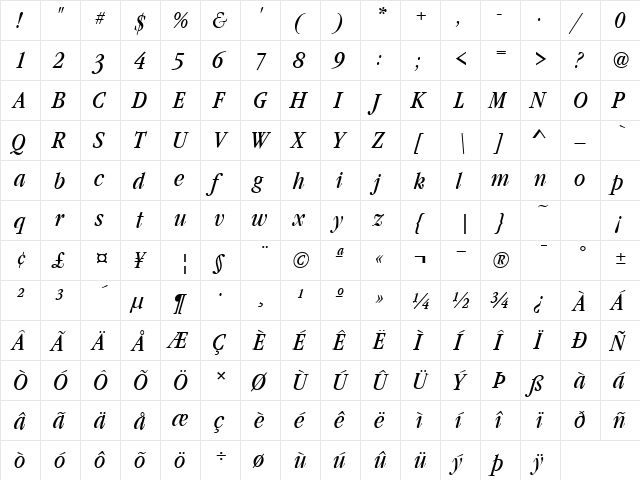
GaramondNovaCond Italic Font Preview
Design Context for GaramondNovaCond Typeface
GaramondNovaCond takes a measured approach to typography — its balanced proportions and neutral character make it a reliable workhorse for both digital and print work. Its italic angle brings a sense of urgency and motion to the letterforms. The condensed width makes it efficient for tight spaces without sacrificing legibility.